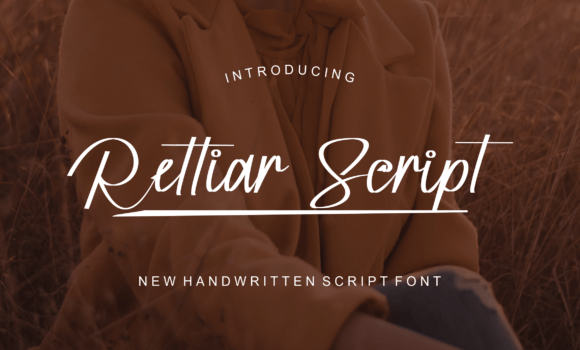
Rettiar Script Font Font – Free Download Introduction to Rettiar Script Font Font Rettiar Script is a modern handwritten script font. 📸 Preview Gallery 4 images 📌 Product Name Rettiar Script Font Font 👤 Author kalingga.albert 📂 Category Explore ⬇️